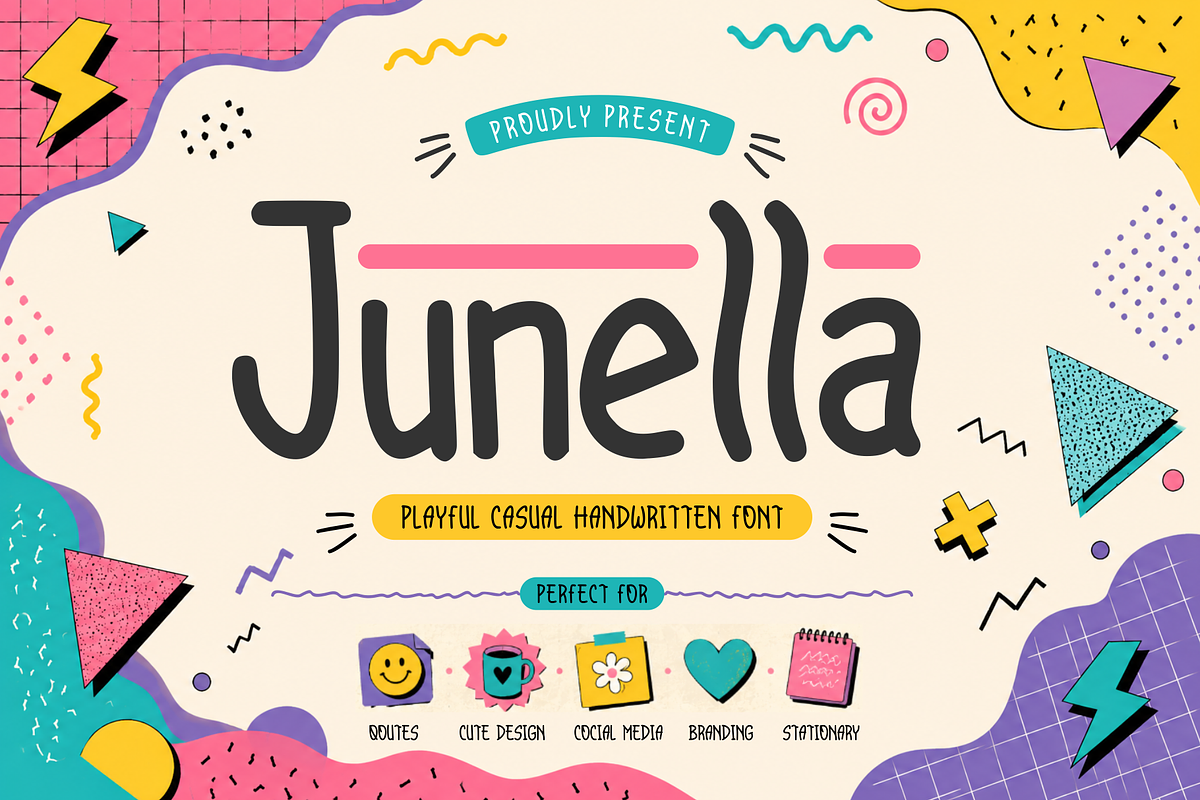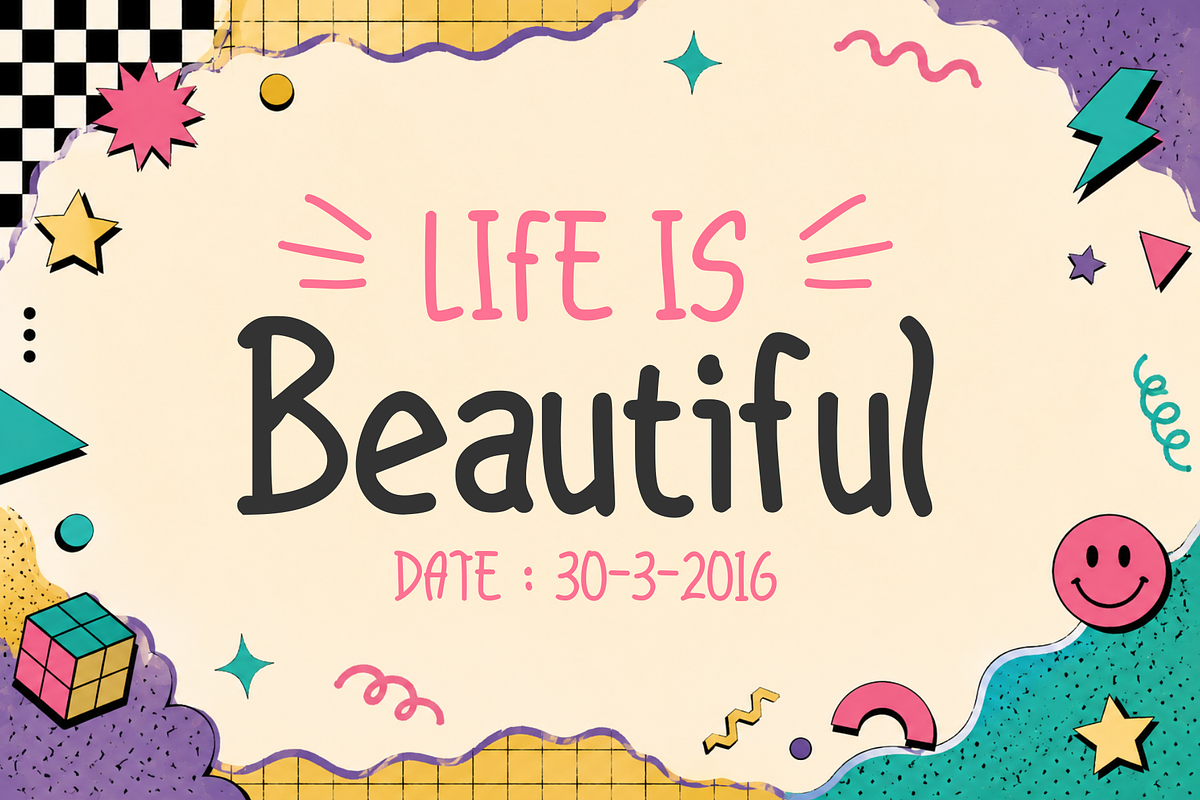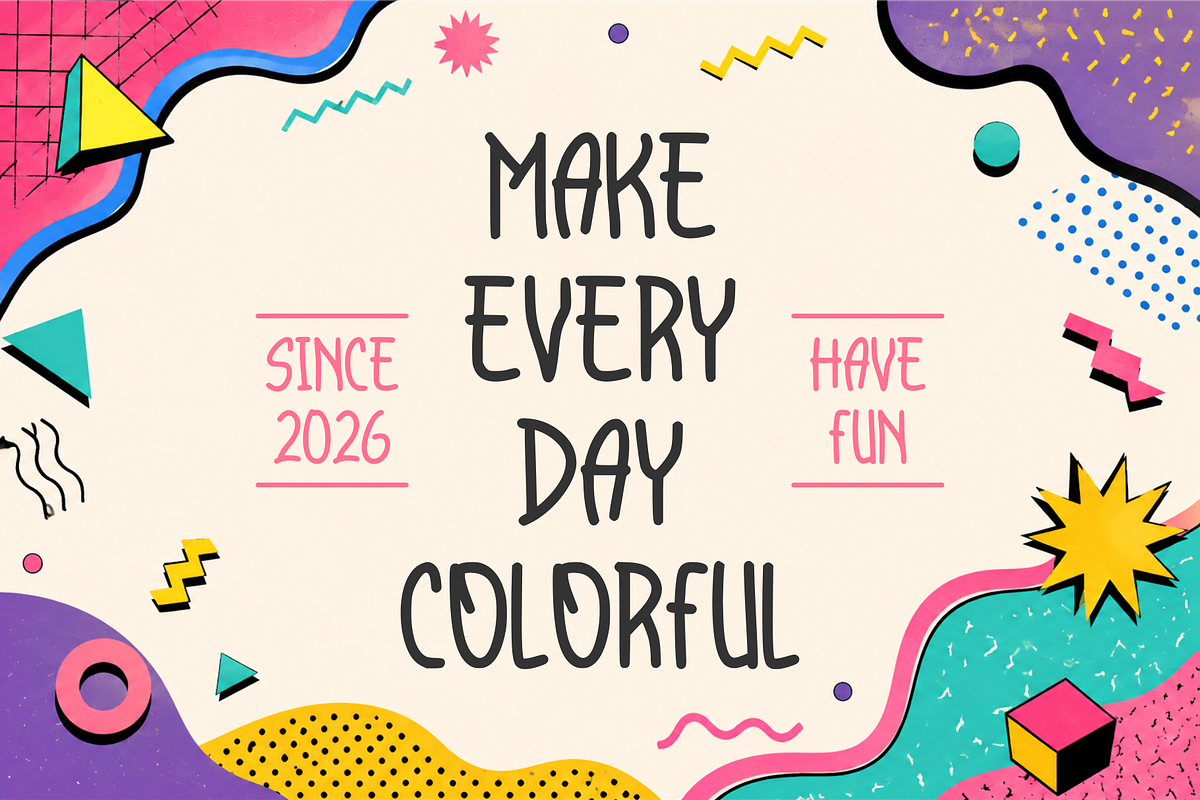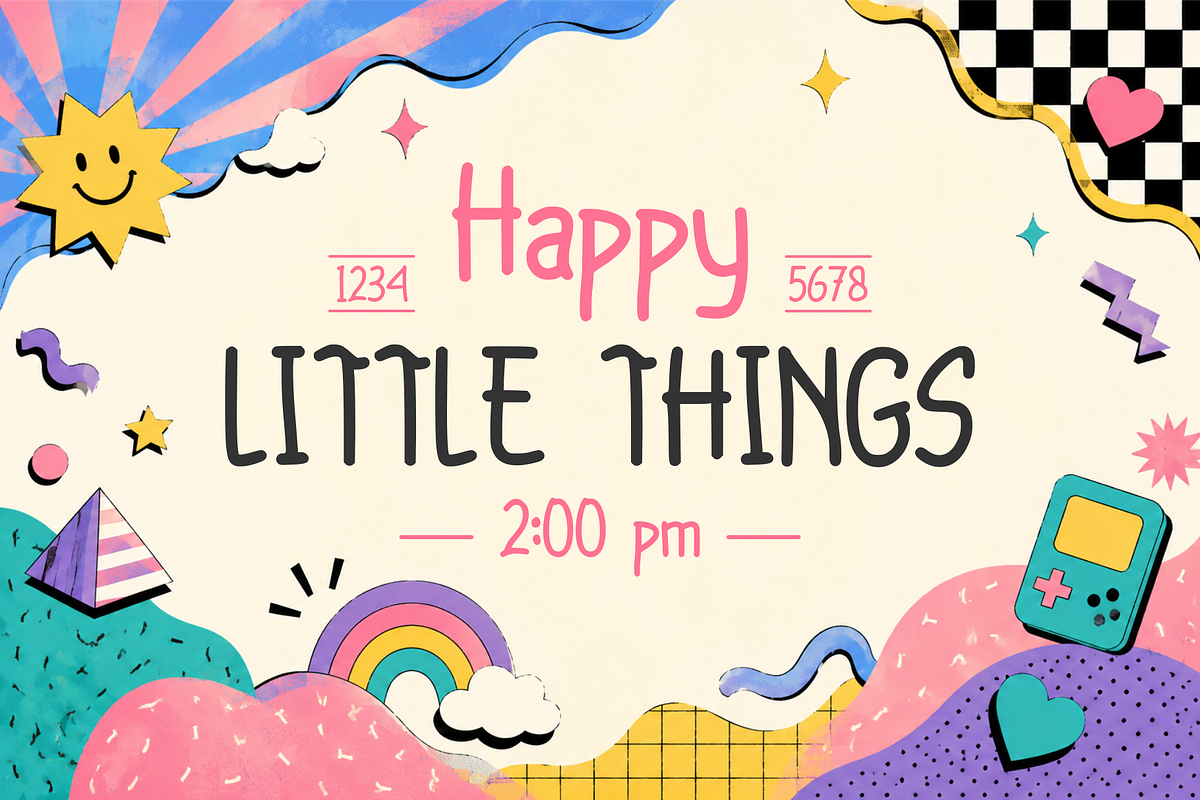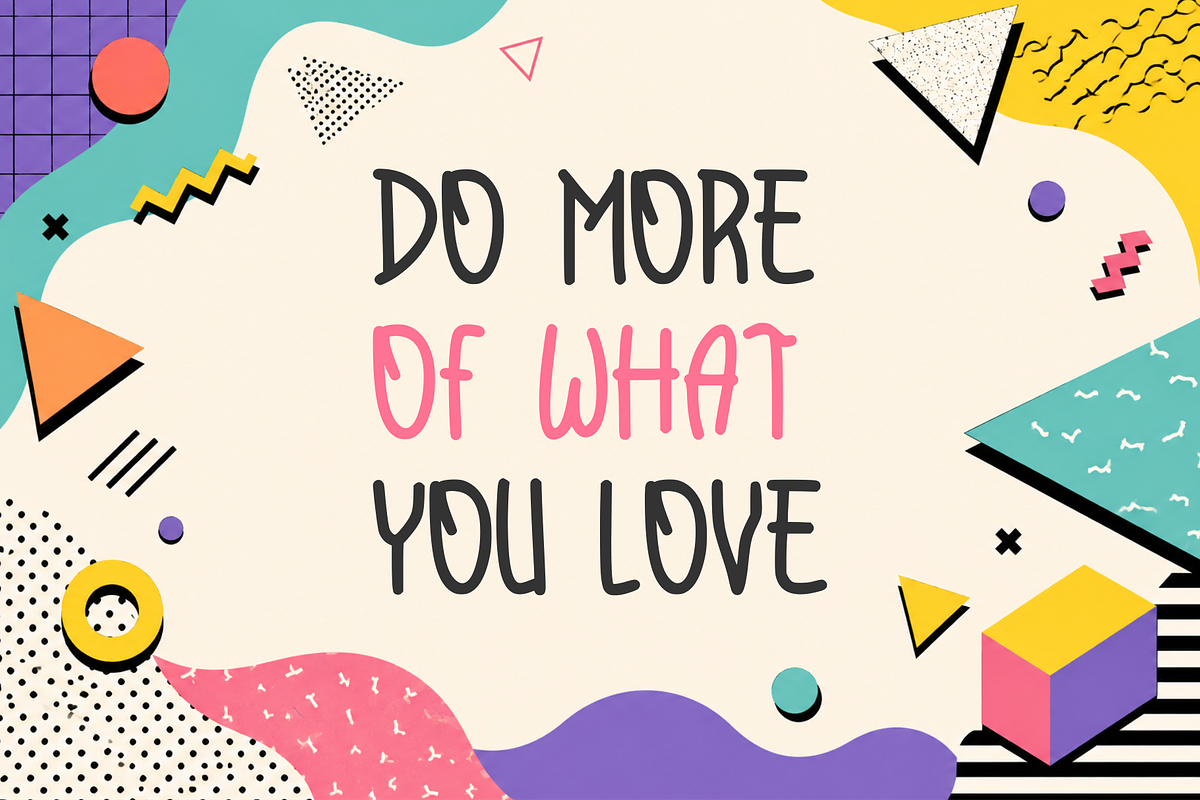
JUNELLA – Playful Casual Handwritten
JUNELLA — Playful Casual Handwritten Font
JUNELLA is a playful and charming casual handwritten font designed to bring a fun, friendly, and youthful personality to your creative projects. Its bold hand-drawn strokes, organic curves, and slightly irregular letterforms create an authentic handmade feel while maintaining strong readability.
Perfect for designs that need a cheerful and approachable character, JUNELLA works beautifully for quotes, social media graphics, cute branding, posters, stickers, invitations, packaging, stationery, merchandise, and lifestyle designs.
With its energetic and carefree appearance, JUNELLA is especially suitable for kids and playful designs, modern handmade brands, casual logos, creative campaigns, greeting cards, and fun editorial layouts.
JUNELLA — where bold handwriting meets playful creativity.